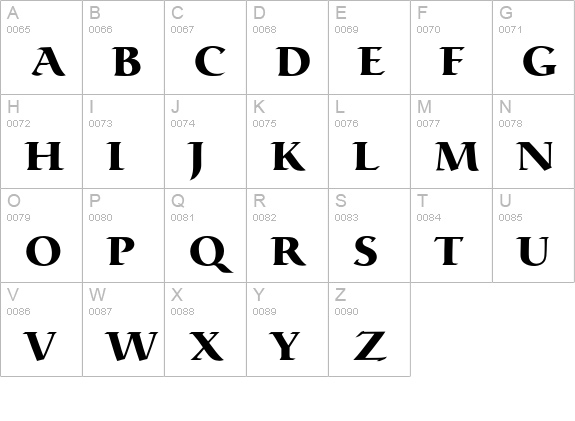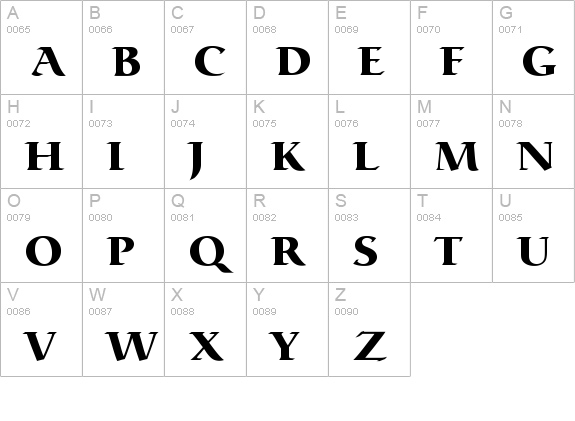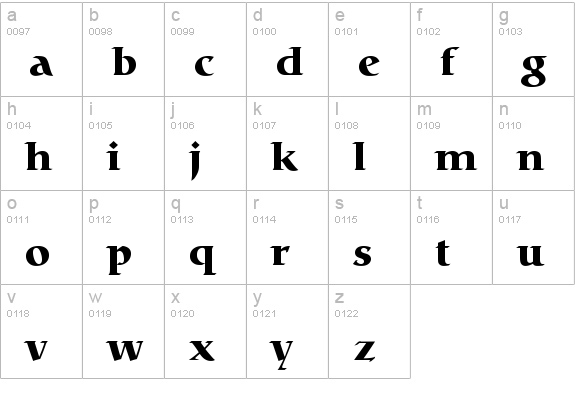
Catull R Font Details
Catull R is a stunning serif font that exudes elegance and sophistication. With its graceful curves and timeless design, this font is perfect for adding a touch of class to any project. Whether you're designing a wedding invitation, creating a logo, or working on a branding project, Catull R is sure to impress. The best part? Catull R is available for free download at FontsMarket.com. This means you can enjoy all the beauty and versatility of this gorgeous font without having to spend a dime. Don't miss out on the opportunity to elevate your designs with Catull R – download it today and start creating something truly special.